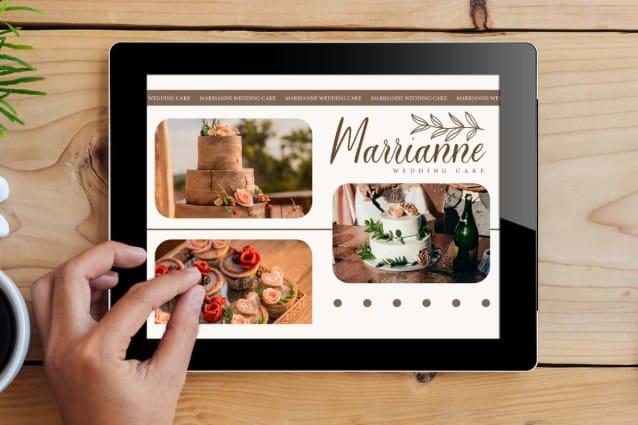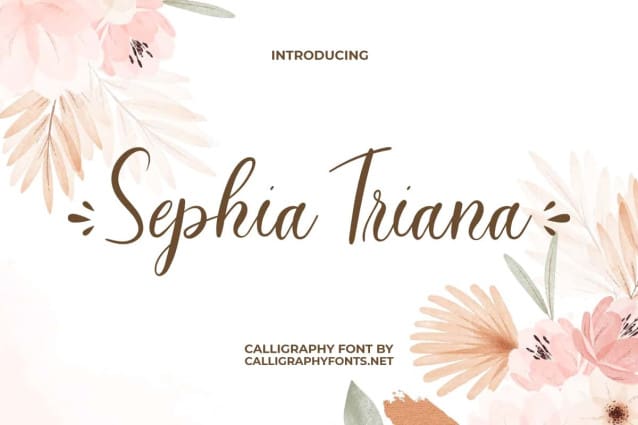
Sephia Triana Font
Sephia Triana Font is an elegant calligraphy font with a very luxurious appeal, the design is modern and trendy, the thick and thin curves are very beautiful, making this font not boring and can attract attention in any design. It will be perfect for your next design, such as blogs, brand logo, card designs, covers, headers, invitations, labels, product packaging, template, text art on background, titles, websites, and much more.
Sephia Triana Font is a casual calligraphy font that comes with beautiful ligatures and an attractive swoosh. Combining several characters makes this typography look perfect. This allows you to create any look that feels alive for your projects, such as bakery, confectionery, event organizer, graphic design, jewelry, nail beautician, printing, publishing, spa salon, sweetshop, wedding, etc.